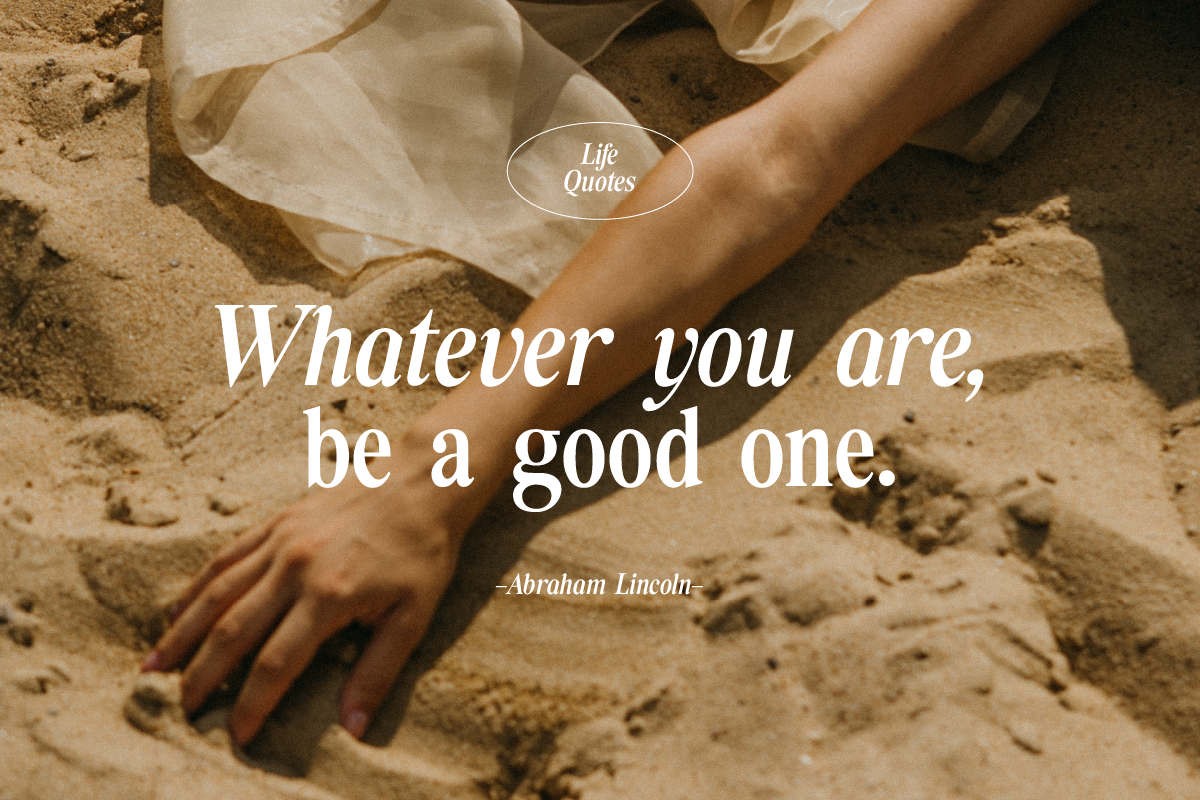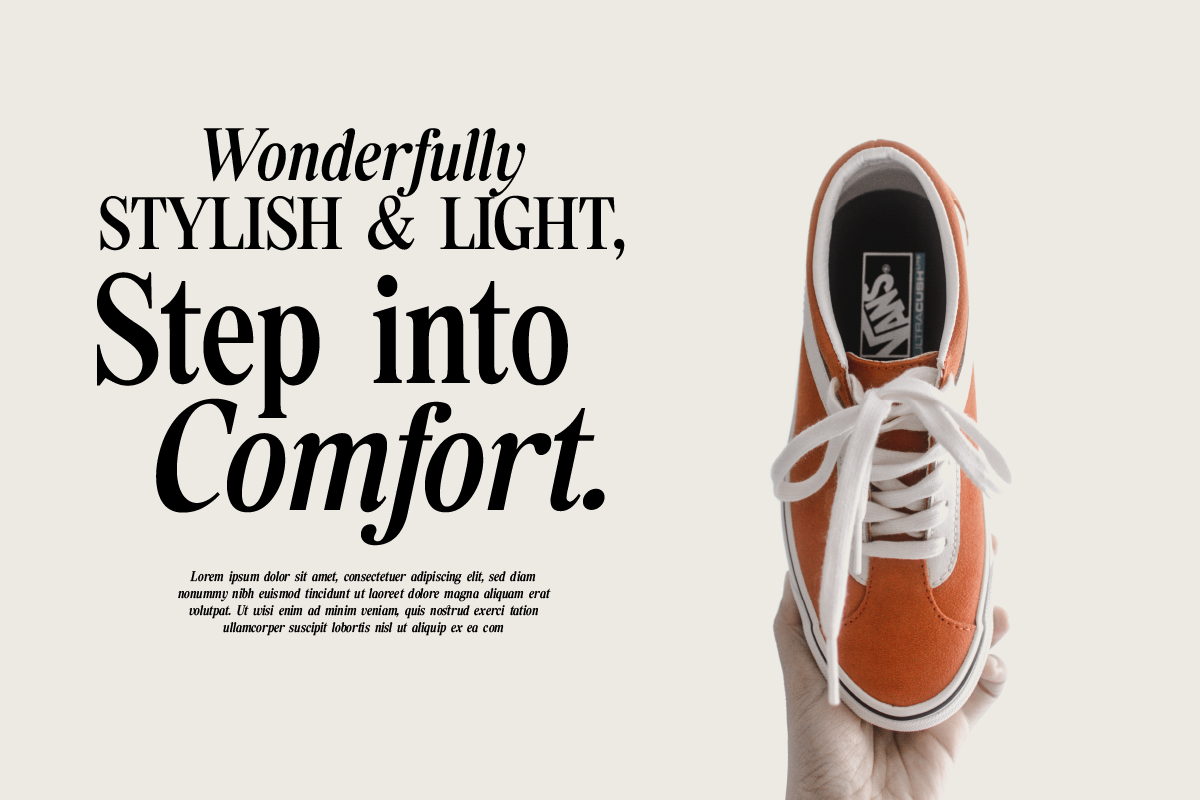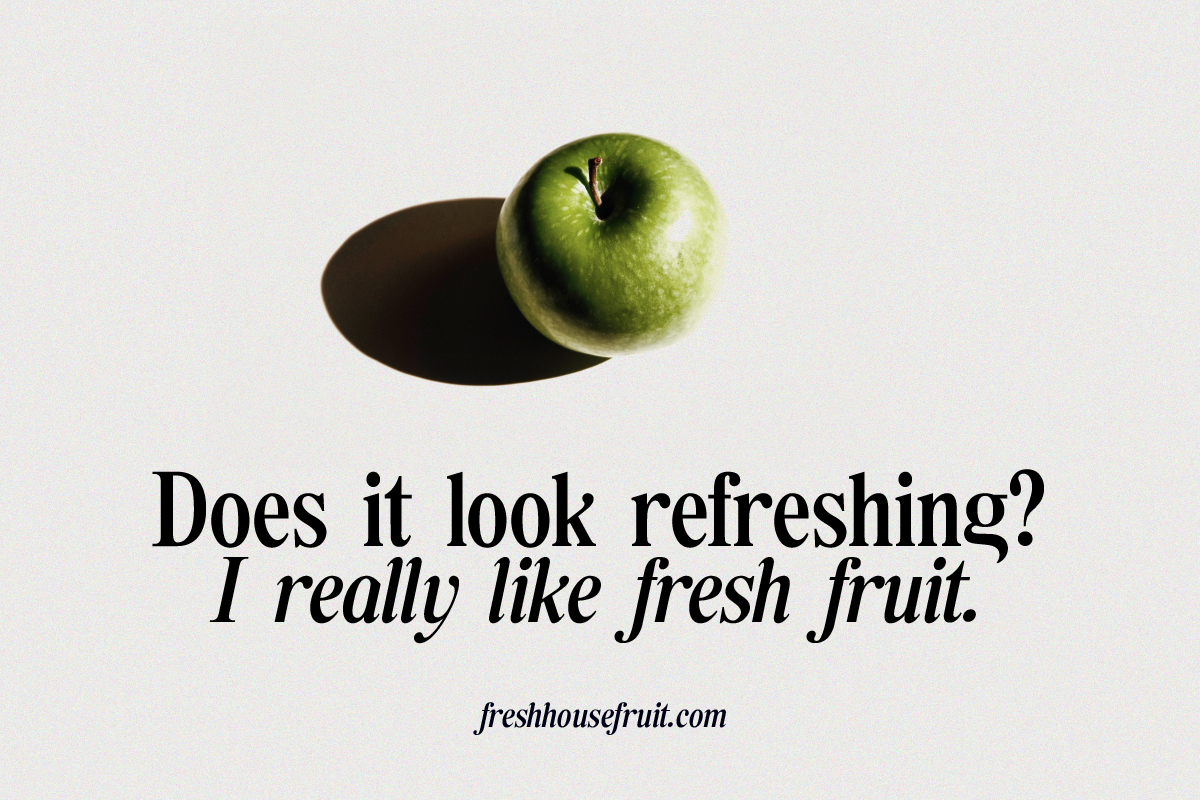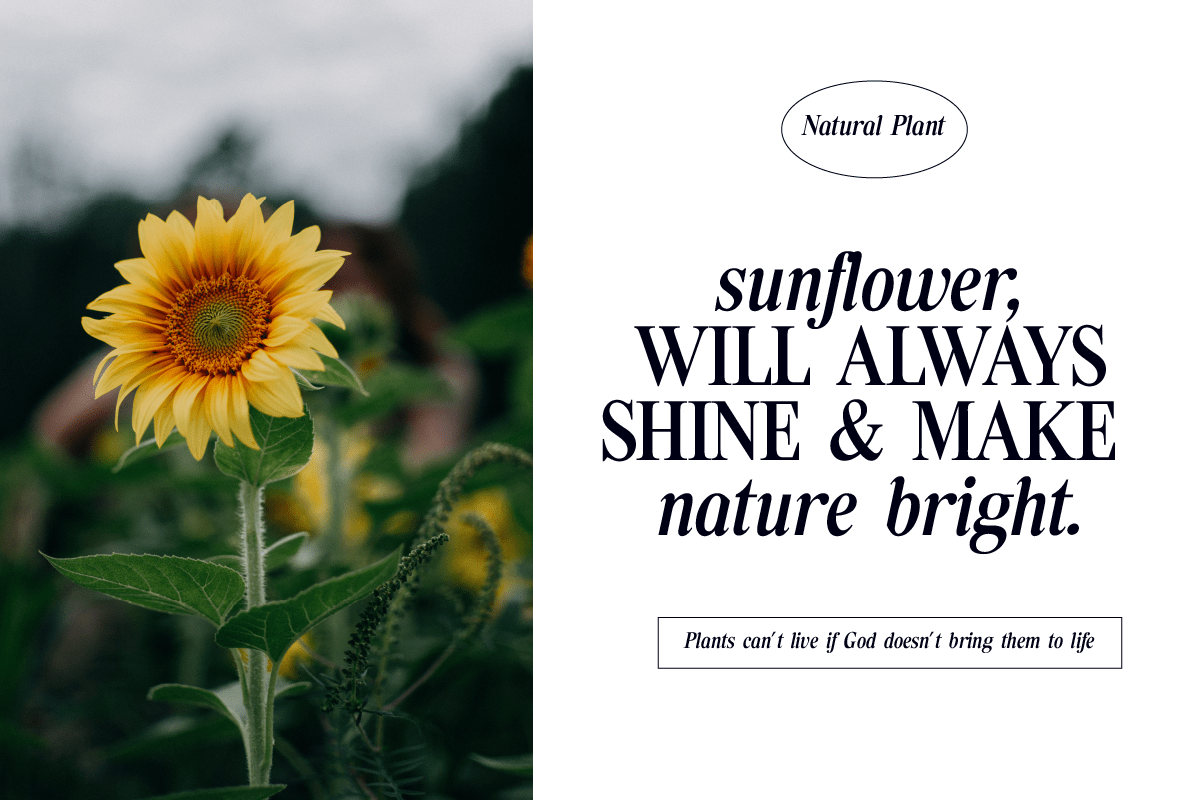
Tiffany Laurence Font
Tiffany Laurence Serif Font
This is a classy eighties magazine-inspired font – with complementary italic versions. Both come in two versions one with more contrast and sharper than the other. In true Eighties style. This font looks premium and is very suitable for your design needs such as invitations, labels, logos, magazines, books, greeting / wedding cards, packaging, fashion, make up, stationery, novels, labels or any type of advertising purpose.